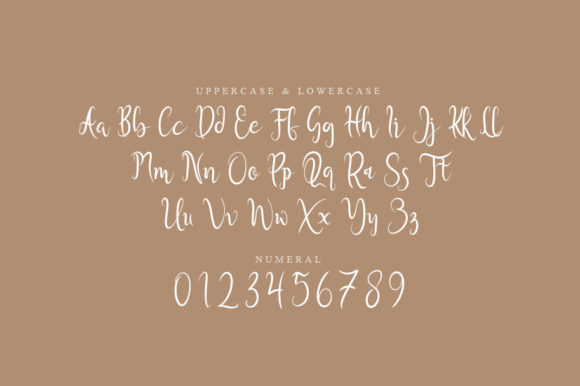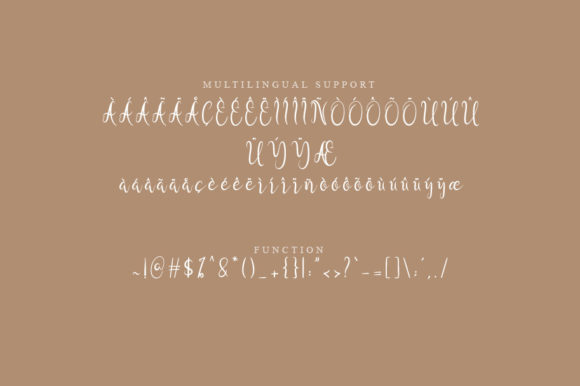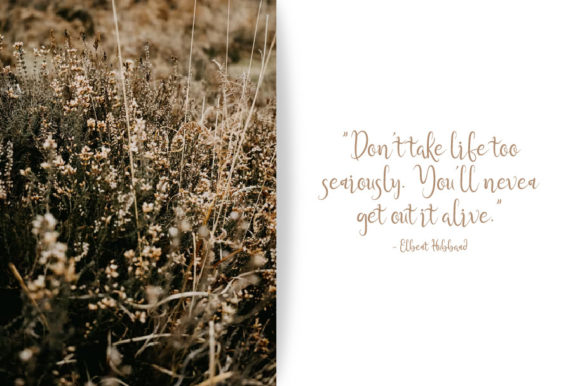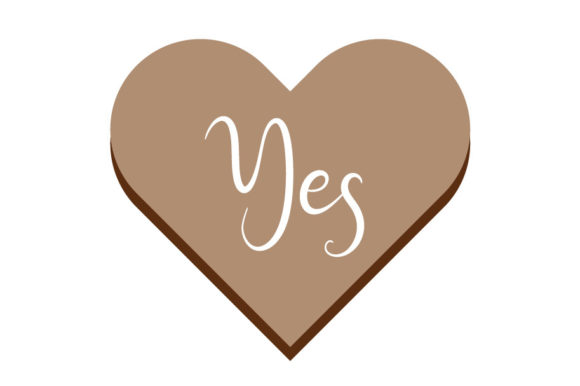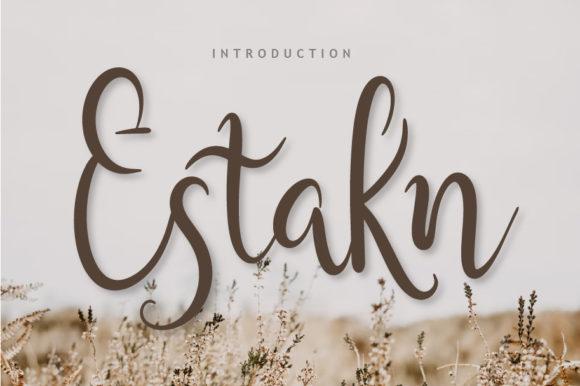
Introducing Estakn Font: A Timeless Handwritten Script for Creative Designs
Are you a designer or crafter looking for a unique and beautiful font to elevate your creative projects? Look no further than Estakn Font, a lovely and timeless handwritten script that’s perfect for creating eye-catching logos, branding, and quotes. With its distinctive and elegant touch, Estakn Font is sure to make your designs come alive!
The Beauty of Estakn Script
Estakn Script is a carefully crafted font that boasts a unique and beautiful touch. Every letter has been meticulously designed to provide a distinctive and elegant feel that’s perfect for a wide range of creative projects. Whether you’re looking to create a stunning logo, a captivating quote, or a beautiful brand identity, Estakn Script is the perfect choice.
Estakn Font is an ideal choice for designers and crafters who want to add a personal touch to their projects. With its handwritten script style, Estakn Font provides a warm and inviting feel that’s perfect for a variety of applications, including:
- Logo design: Create eye-catching logos that stand out from the crowd with Estakn Font’s unique and elegant style.
- Branding: Develop a strong brand identity with Estakn Font’s distinctive and memorable script.
- Quotes: Add a touch of elegance and sophistication to your quotes with Estakn Font’s beautiful handwritten style.
- Stationery: Create beautiful stationery, including invitations, greeting cards, and more, with Estakn Font’s charming script.
What Makes Estakn Font Stand Out
So, what sets Estakn Font apart from other fonts? Here are just a few reasons why Estakn Font is a cut above the rest:
- Unique and beautiful touch: Every letter in Estakn Font has been carefully designed to provide a distinctive and elegant feel.
- Timeless style: Estakn Font’s handwritten script style is timeless and versatile, making it perfect for a wide range of creative projects.
- Elegant and sophisticated: Estakn Font adds a touch of elegance and sophistication to any design, making it perfect for high-end branding and marketing materials.
In conclusion, Estakn Font is a lovely and timeless handwritten script that’s perfect for designers and crafters who want to add a personal touch to their creative projects. With its unique and beautiful touch, Estakn Font is sure to make your designs come alive! Whether you’re looking to create a stunning logo, a captivating quote, or a beautiful brand identity, Estakn Font is the perfect choice.